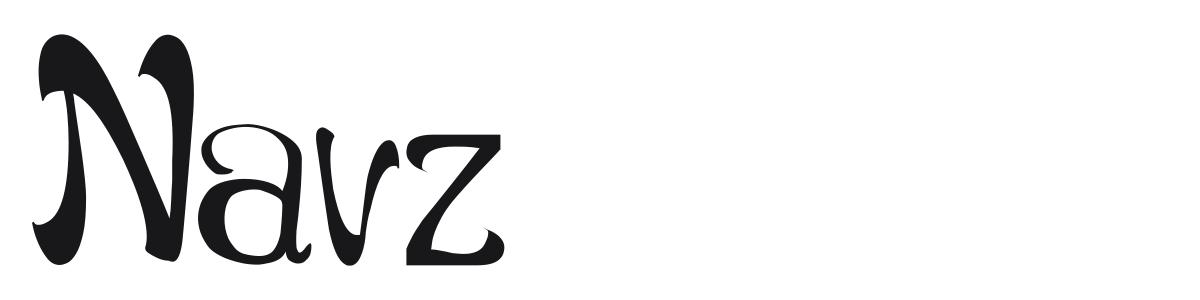
Navz
Navz is a bold handcrafted display face with a wild, psychedelic energy rooted in 1960s underground lettering traditions. Stroke contrast swings dramatically from thick swelling curves to hairline stems, and no two characters share the same rhythm. It reads as genuinely eccentric rather than casually quirky, the result of a first-time designer letting instinct drive every decision.